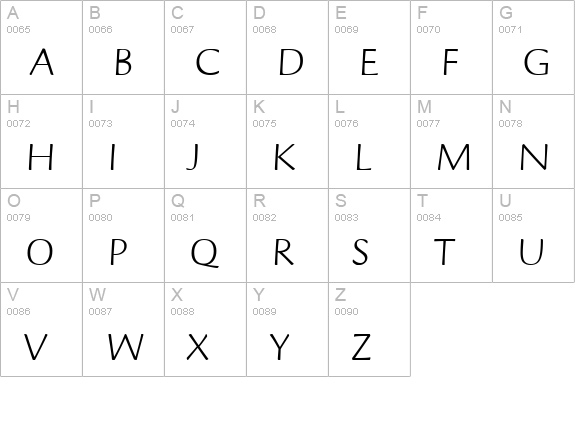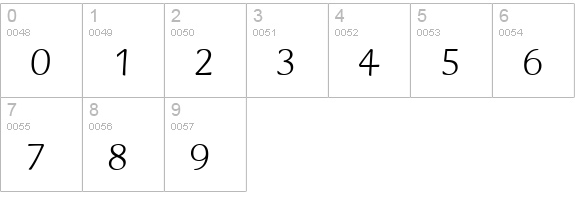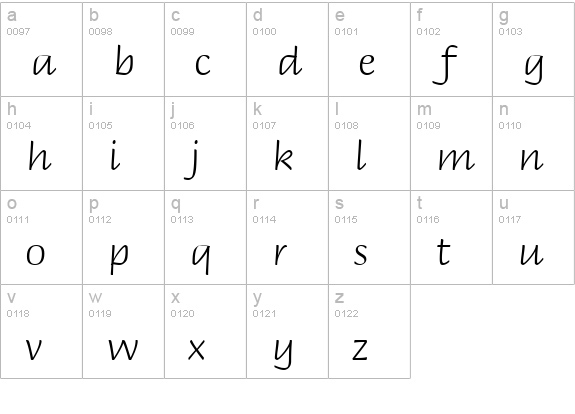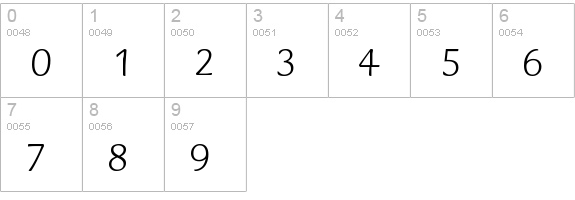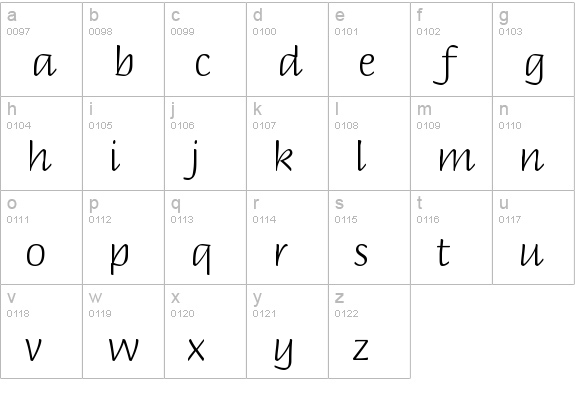
BriemScript Font Details
BriemScript is a elegant and sophisticated handwritten font that exudes charm and personality. With its flowing cursive style and delicate curves, BriemScript adds a touch of elegance to any project it is used in. Whether you're looking to add a personal touch to invitations, cards, or branding materials, BriemScript is the perfect choice. What makes BriemScript even more appealing is that it is free to download at FontsMarket.com. This means you can easily access this beautiful font and use it in your projects without any cost. Don't miss out on the opportunity to elevate your designs with BriemScript's timeless and classic appeal. Download it today and start creating stunning pieces that will captivate your audience.